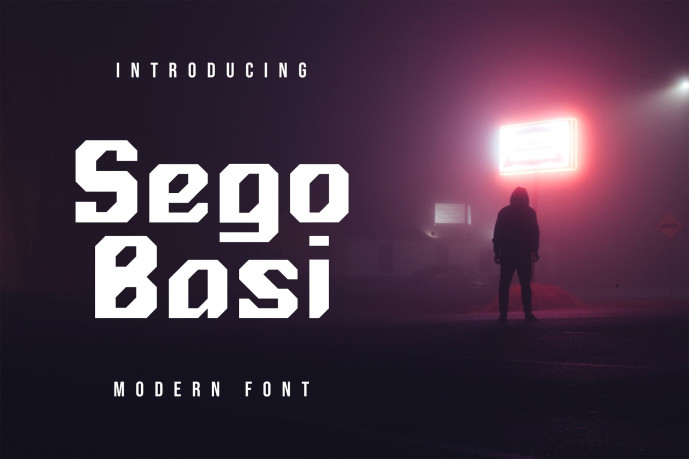
Sego Basi Modern Font
Designer: zerologicstudio
Sego Basi Modern Font. This is the latest modern font from us, very suitable for use in your work presentations such as blog design, modern design, web design, invitation cards, and others. please download and enjoy!